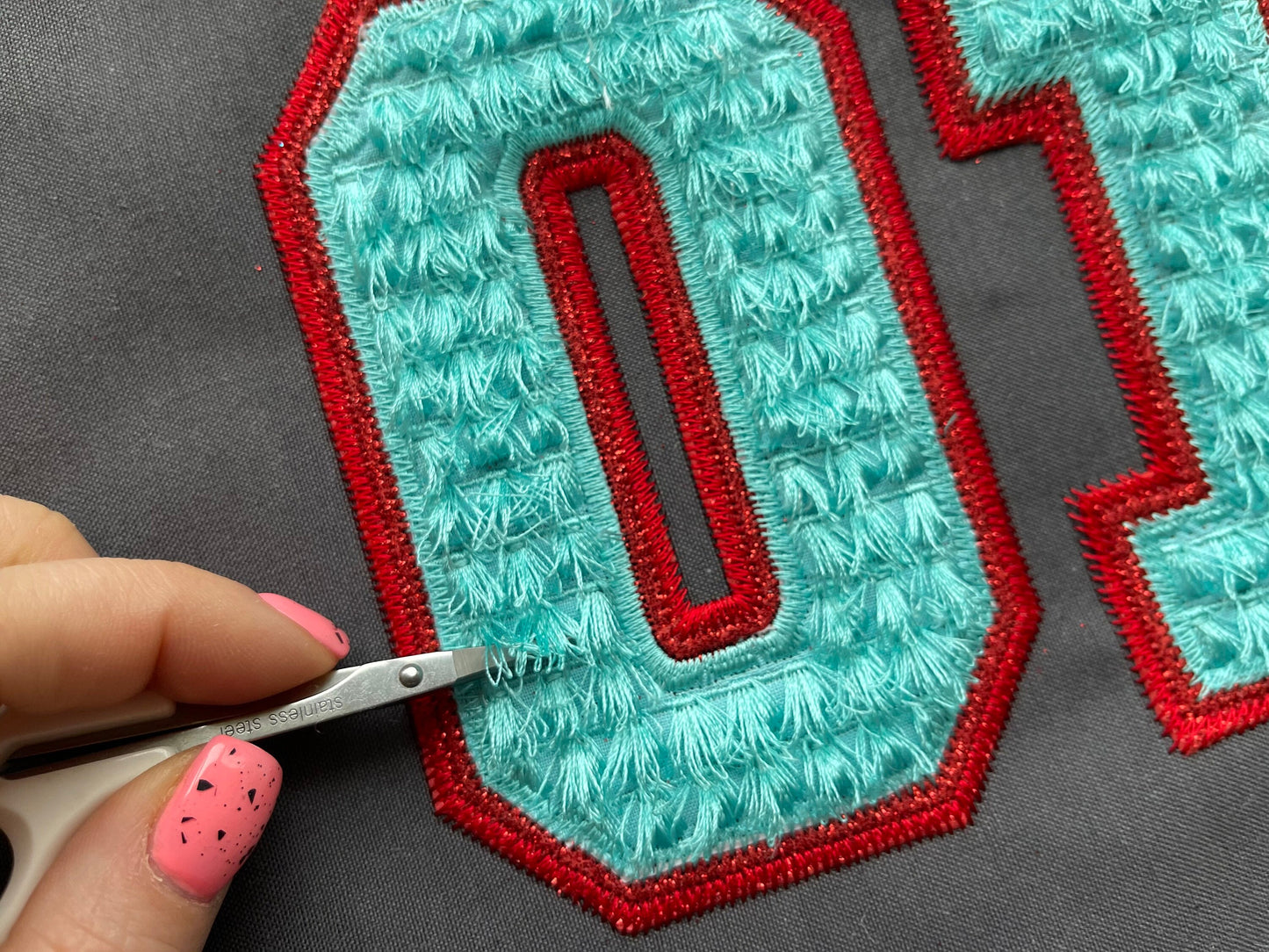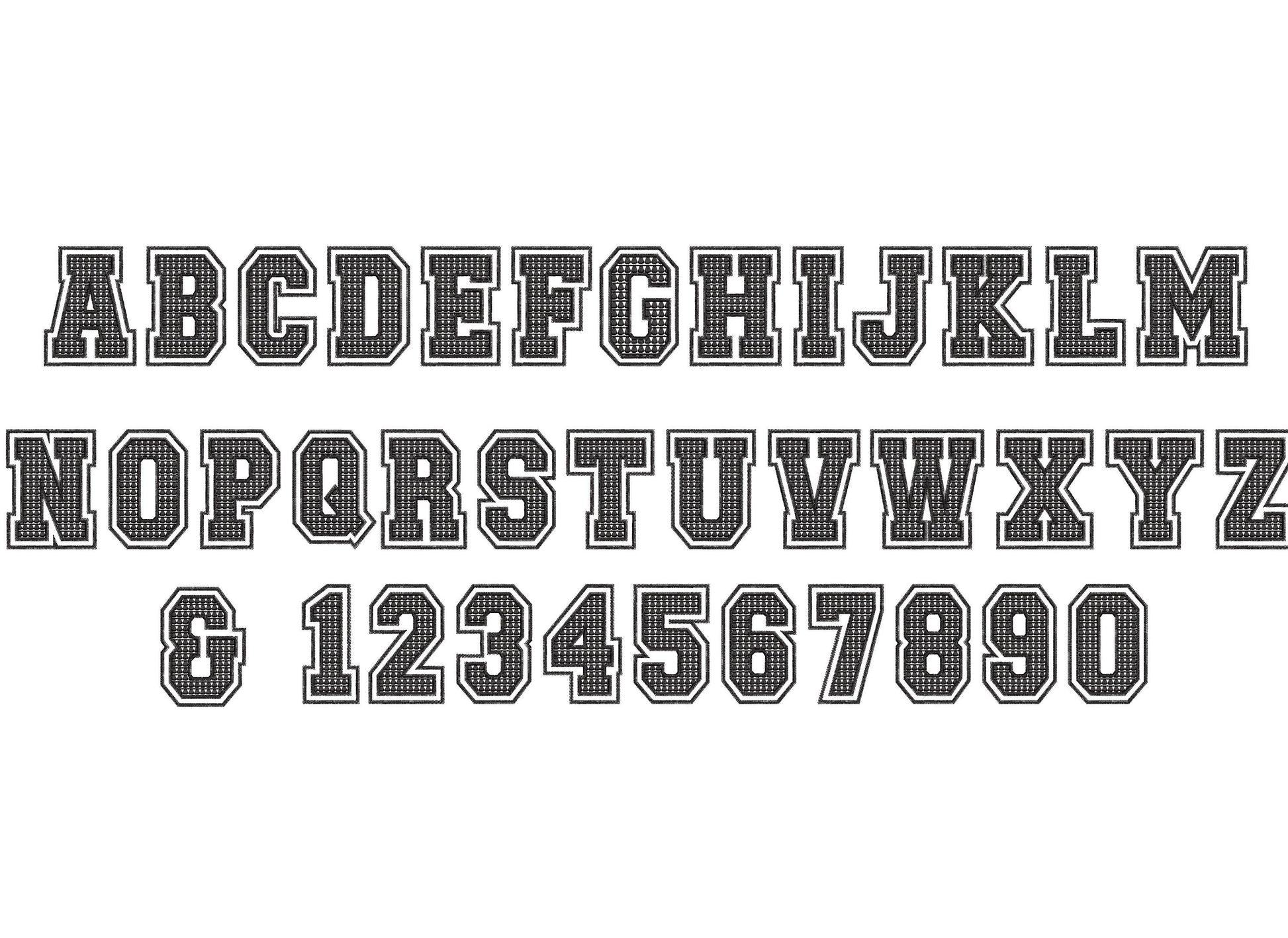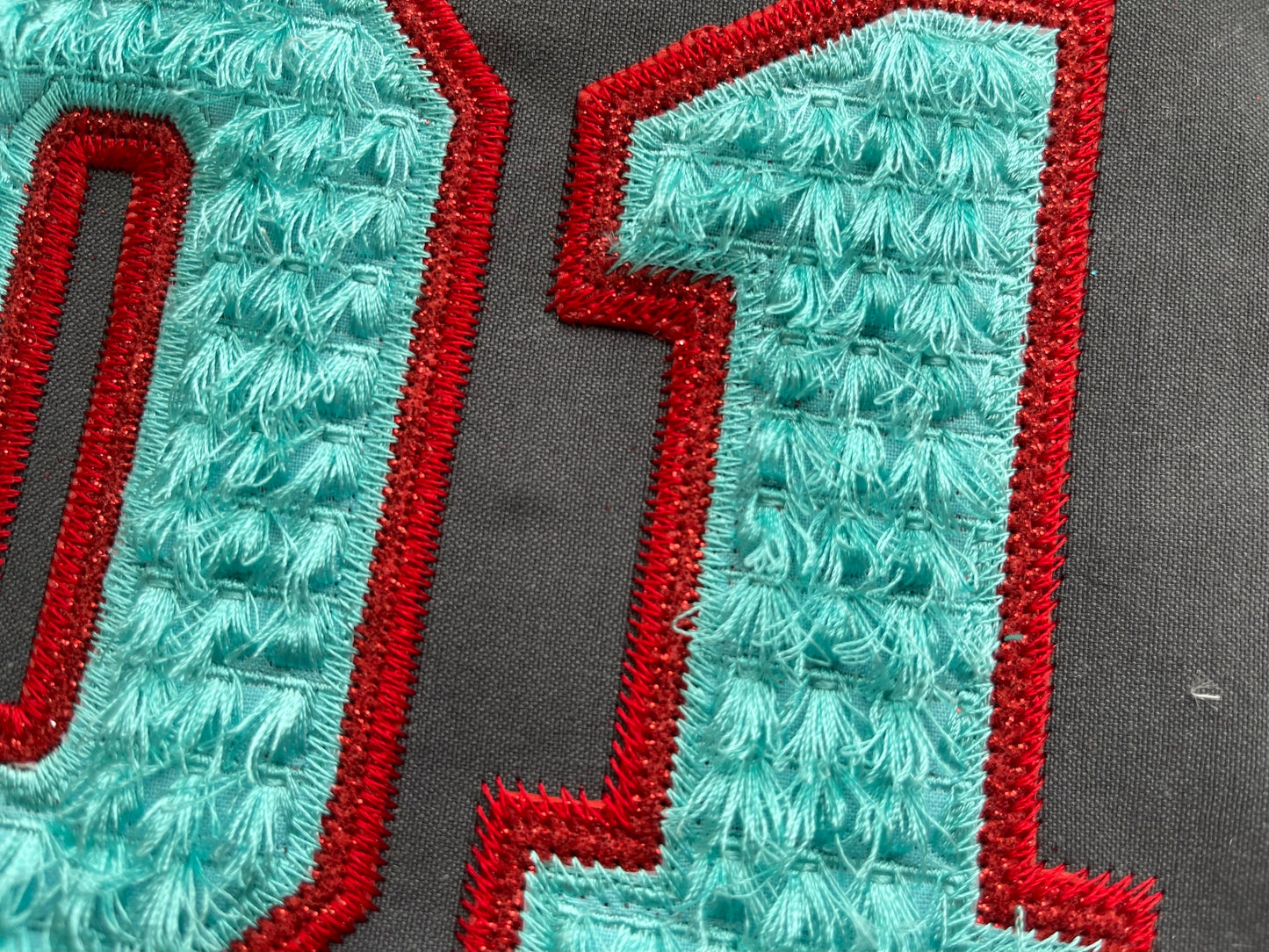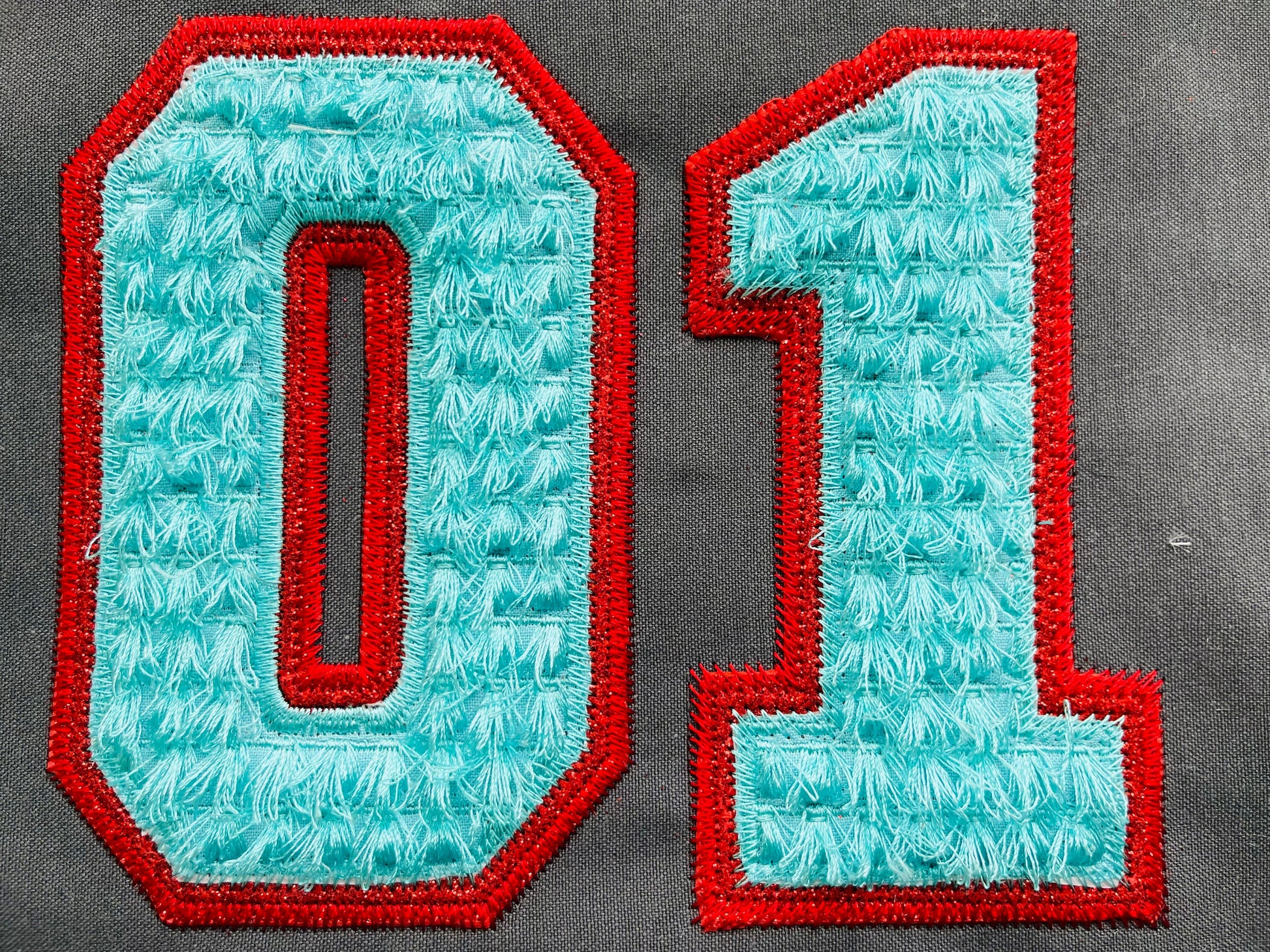
Or click to open the linkA big fringed athletic font with a glitter vinyl layer and a zigzag outline. Fun for letterman-style sweatshirts, jackets and team gifts.
Uppercase letters A to Z, numbers 0 to 9, an ampersand, comma, dash and period. Five sizes: 4, 4.5, 5, 6 and 7 inches. Two applique layers with fluffy fringe that is safe to wash.